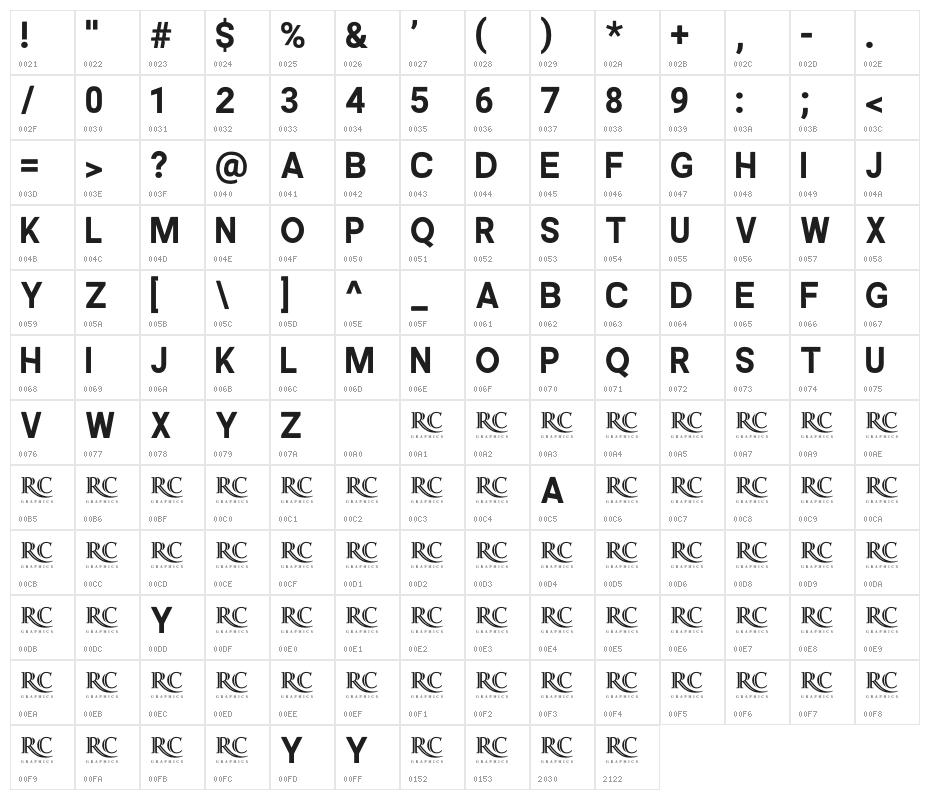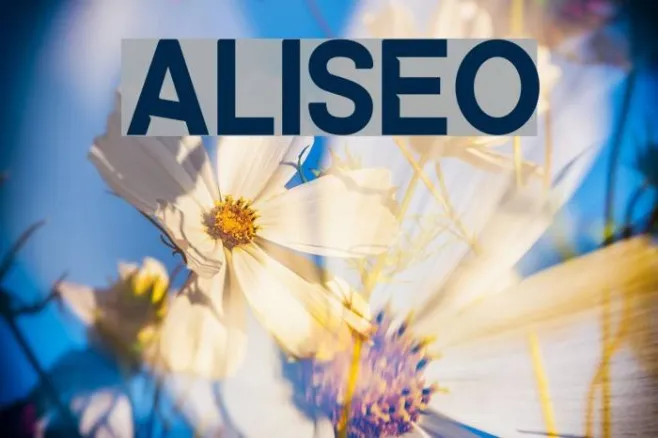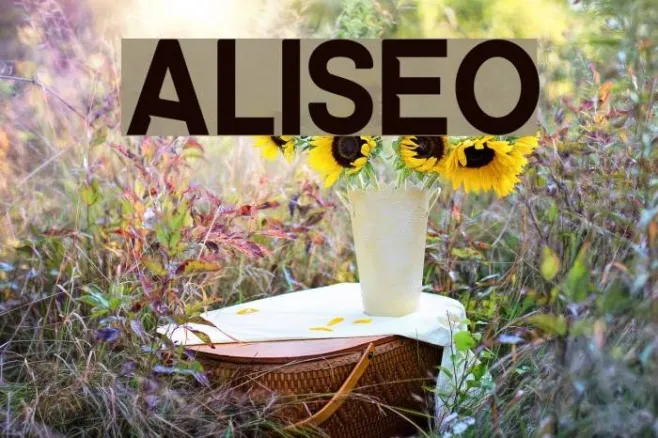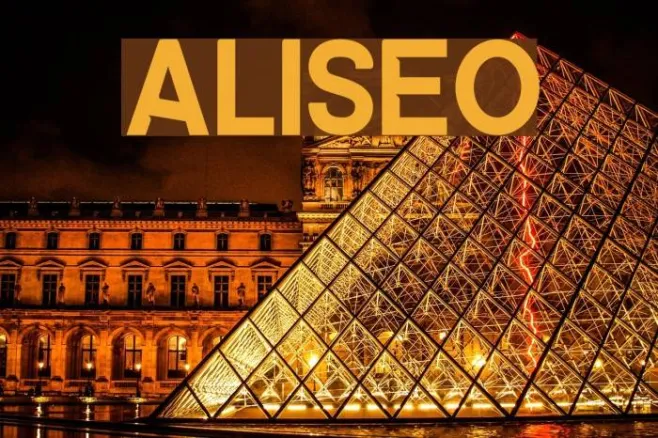
ALISEO Font
ALISEO Description
This font features a bold and modern sans-serif style, characterized by clean lines and a strong presence. The uppercase and lowercase letters maintain a consistent width, contributing to a uniform appearance. The numbers are equally bold, ensuring readability and impact. Special characters are well-defined, adding versatility to the font's usage. The overall design is straightforward, making it suitable for a variety of applications where clarity and modernity are desired. The uniform stroke width and lack of serifs give it a contemporary feel, ideal for digital and print media.
| Use Case | Headlines, Logos, Advertising |
| Proposed Projects | Ideal for branding, advertising, headlines, and digital media where a modern and impactful look is needed. |